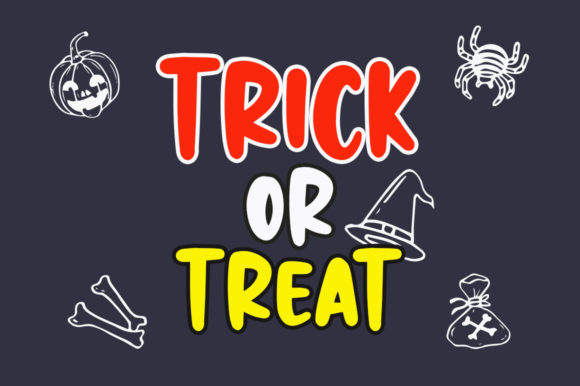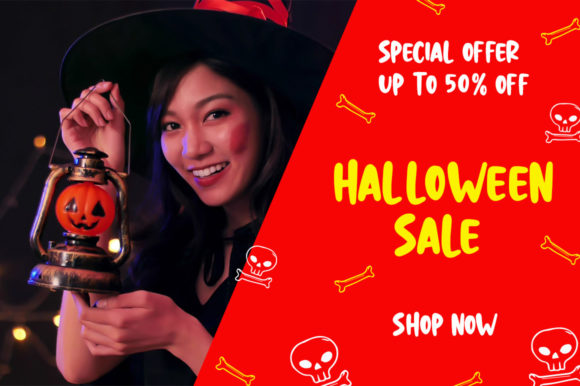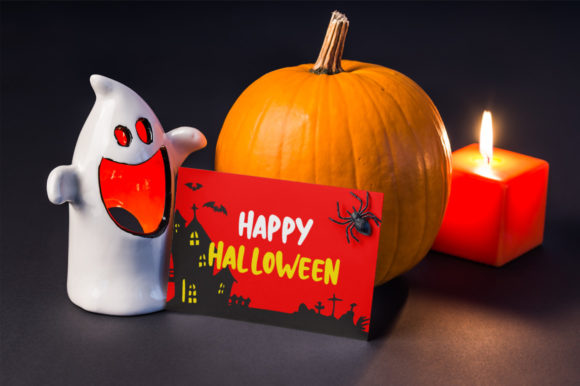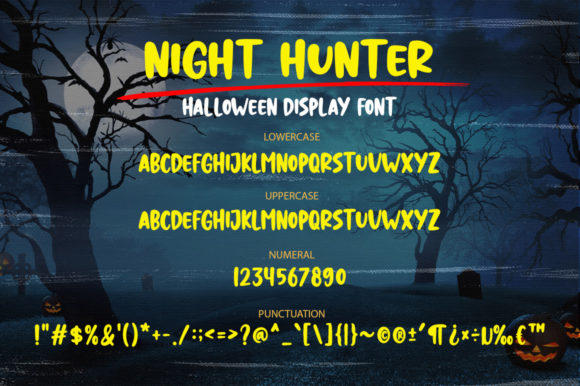
Introduction to Night Hunter Font
Night Hunter is a cool, spooky and casual display font.
It will elevate a wide range of crafting ideas, from cards, to branding, labels and much more Add it confidently to your Halloween creations and let yourself be amazed by the outcome generated.
Key Features of Night Hunter Font
Why Choose Night Hunter Font?
Night Hunter Font offers exceptional quality and versatility, making it a valuable addition to your design toolkit. Whether you’re creating for personal projects or commercial use, Night Hunter Font delivers professional results.